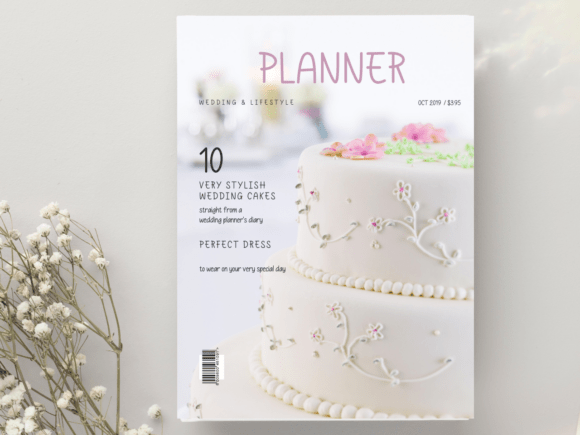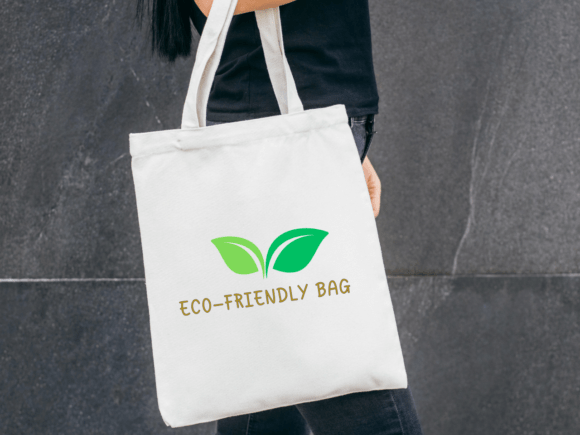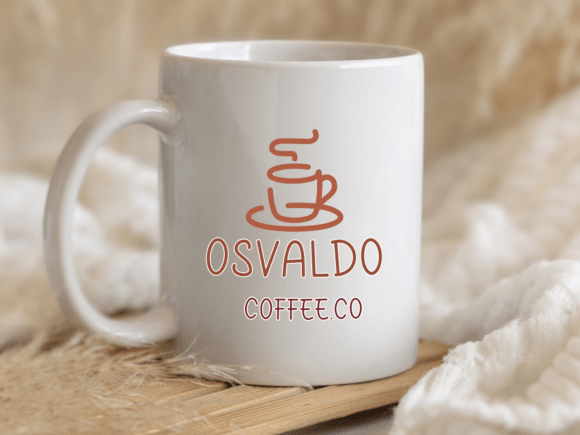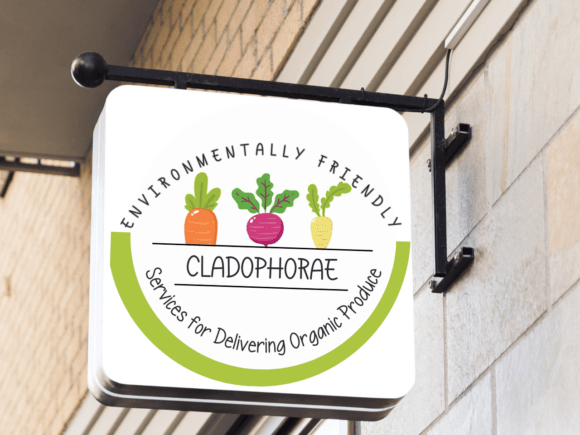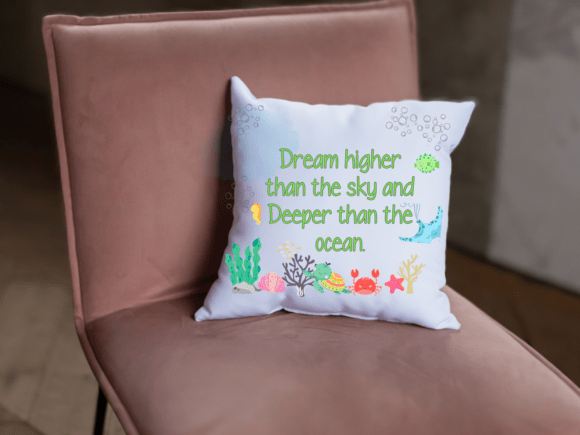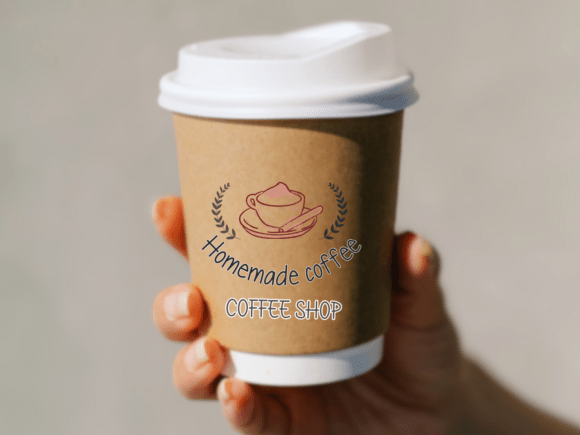
Introduction to Nildavil Font
As a designer, you’ve likely experienced that moment of pure creative bliss when a project finally comes together, and every element falls into place. It’s a feeling of satisfaction and accomplishment, knowing that your hard work has paid off. But what if you could elevate that feeling to a whole new level? Enter the Nildavil Font, a high-quality design resource that adds a touch of uniqueness to any creative project.
Whether you’re a seasoned designer or just starting out, the Nildavil Font is a valuable addition to your toolkit. Its edgy yet elegant design makes it perfect for a wide range of applications, from logos and branding to greeting cards and wedding invitations. And with its transparent background, you can easily layer it over other design elements to create a truly immersive experience.
But what really sets the Nildavil Font apart is its versatility. Whether you’re working on a free download or a paid project, this font is sure to add a touch of sophistication and style. So why settle for ordinary when you can have extraordinary? Try the Nildavil Font today and discover a whole new world of creative possibilities.
Key Features of Nildavil Font
- Unique characteristics include its bold and elegant style, making it perfect for headings and titles.
- Designed to be versatile, the Nildavil Font is suitable for a wide range of creative projects, from print to digital media.
Honest Review: Nildavil Font
As a designer, I’m always on the lookout for high-quality design resources that can elevate my creative projects. The Nildavil Font is one such resource that I’ve had the chance to work with, and I’m excited to share my honest review.
What works well: ✨ The Nildavil Font is incredibly versatile, with a wide range of styles and weights to choose from. It’s perfect for creating visually appealing headings, titles, and even body text. I’ve used it for a variety of projects, from logos to website design, and it’s always delivered. The font is also free to download, making it an excellent resource for designers on a budget.
- ✨ High-quality design: The Nildavil Font is well-designed and looks great on both digital and print materials.
- ✨ Transparent background: The font is available with a transparent background, making it easy to layer over other design elements.
Limitations: ⚠️ While the Nildavil Font is an excellent resource, it’s not without its limitations. The font is not as comprehensive as some other popular fonts, and it may not be suitable for projects that require a wide range of special characters or languages.
Overall impression: I’m really impressed with the Nildavil Font. It’s a high-quality design resource that’s perfect for creative projects. While it may have some limitations, I think it’s well worth checking out, especially if you’re looking for a free font with a lot of style and versatility.
Tips for Getting the Most Out of Nildavil Font
Use Nildavil Font in conjunction with other design elements, such as images and graphics, to create a cohesive and visually appealing design. Experiment with different font combinations and styles to find the perfect fit for your creative project. You can also use Nildavil Font as a free download to add a unique touch to your design.
Nildavil Font is ideal for use in a variety of creative projects, including logos, branding materials, and marketing materials. It is also suitable for use in educational materials, such as presentations and documents. With its high-quality design and transparent background, Nildavil Font is a valuable design resource for any creative project.